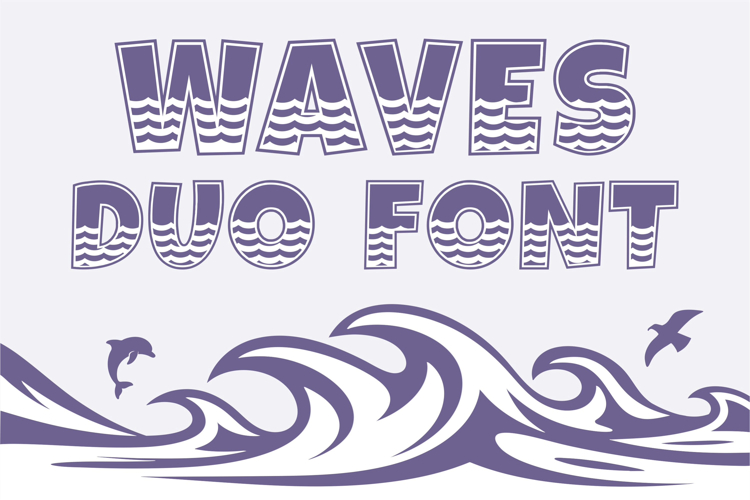
Waves Duo Font | Beach Summer Font for Kids | Ocean Sea
Ready to make waves in your next design? The Waves Duo Font is a cheerful and beachy font set that includes both the original Waves Font and its matching Waves Shadow Font — perfect for layering to create bold, dimensional text with a splash of summer fun!
This unique duo is inspired by rolling tides, sandy toes, and sunny days. Each letter is decorated with built-in wave patterns, making it ideal for summer shirts, kids' crafts, pool party invitations, ocean-themed birthday decor, or playful coastal branding. Whether you're creating with Cricut, Silhouette, Procreate, or Photoshop, this font brings sunny energy to everything it touches.
Waves
Waves Shadow
Waves
Waves Shadow